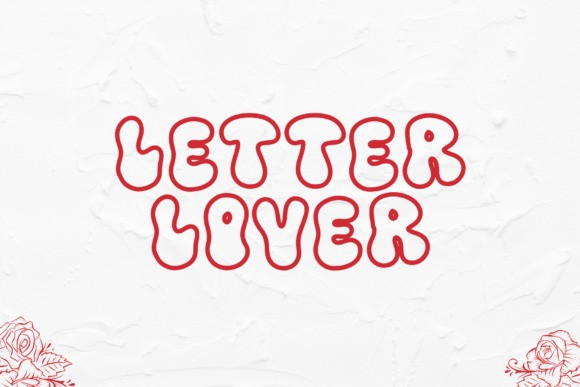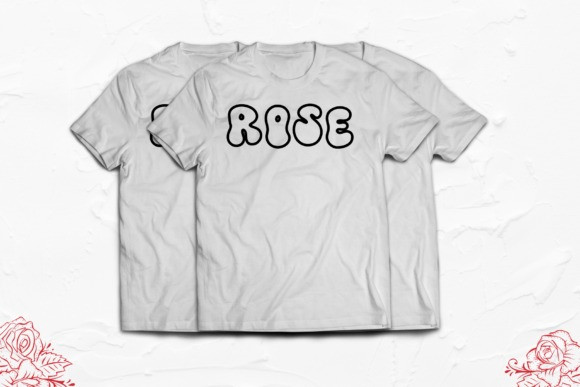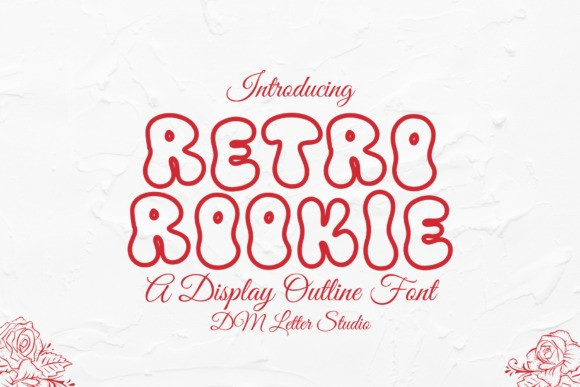
Retro Rookie Font
Retro Rookie Font is a super fun and eye-catching Display Outline font that effortlessly channels the playful, bubble-gum aesthetics of the 1970s and 80s.This unique typeface features bold, rounded, and wonderfully squishy letterforms defined solely by their thick, cheerful outline, giving your text an immediate, energetic pop. The distinct look of the Retro Rookie font makes it the ultimate choice for projects that need to convey nostalgia, fun, and a carefree attitude, such as party invitations, vibrant product packaging, playful apparel, and dynamic social media headlines.
As a versatile all-caps display font, Retro Rookie typeface includes a full set of numerals and punctuation, ensuring its unique style remains consistent across your entire design. Elevate your creative assets with the instantly recognizable style of the Retro Rookie font, guaranteeing a design that is both stylishly retro and wonderfully modern.
Design tips for tasty retro type
Keep the copy short and let the Retro Rookie Font lead. Pair big cookie-style headlines with a clean geometric sans for captions and prices. Meanwhile, use curved baselines and arched badges to echo vintage bakery seals. Because the forms are thick and friendly, glitter textures, pastel gradients, and gel highlights work beautifully. However, avoid long sentences on tiny labels. Names, dates, and punchy phrases hit hardest.
Why creators choose Retro Rookie Font
You want cozy nostalgia with clear readability. Retro Rookie Font delivers. It grabs attention in crowded feeds, speeds production, and scales from mini stickers to storefront posters without losing charm. Therefore, one typeface can anchor kids, bakery, and party collections with a consistent, sellable voice.